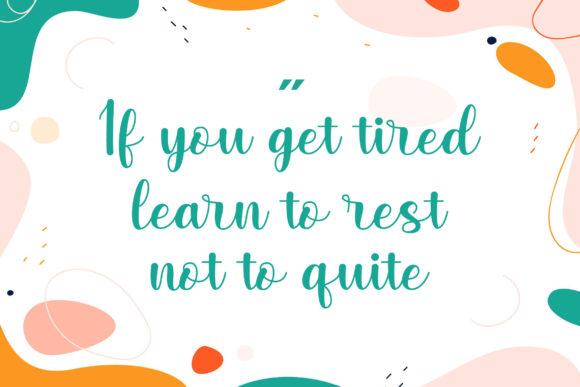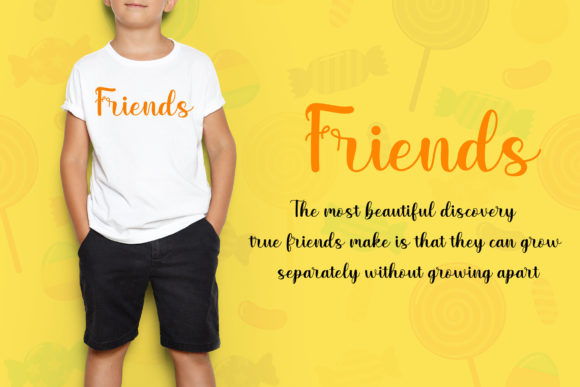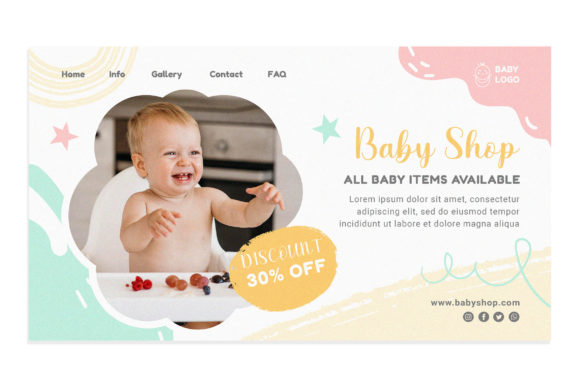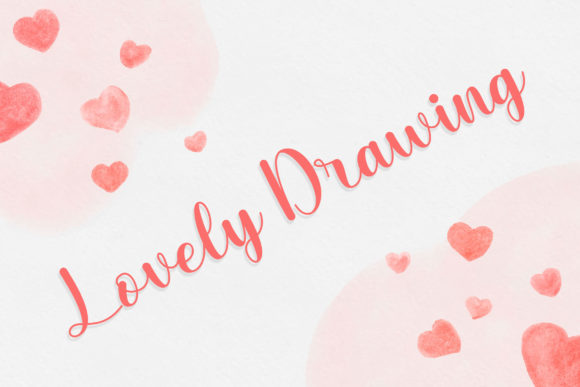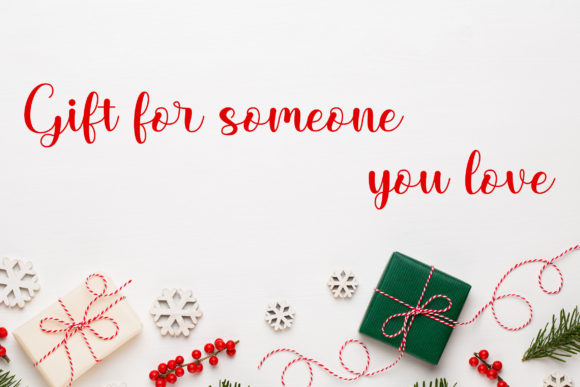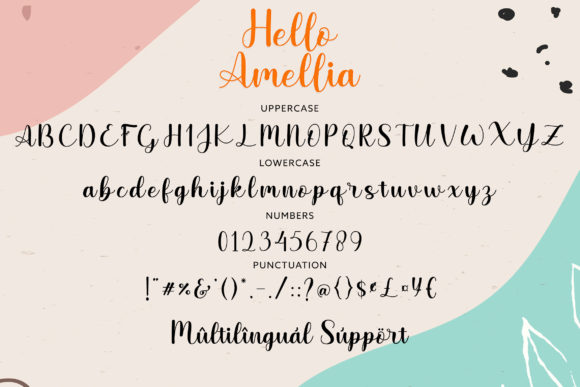
Hello Amellia Font
About Hello Amellia Font
Hello Amellia is an enchanting handwritten font. This versatile script font has a wide spectrum of applications ranging from greeting cards to headlines and is guaranteed to add a romantic feel to your next project.